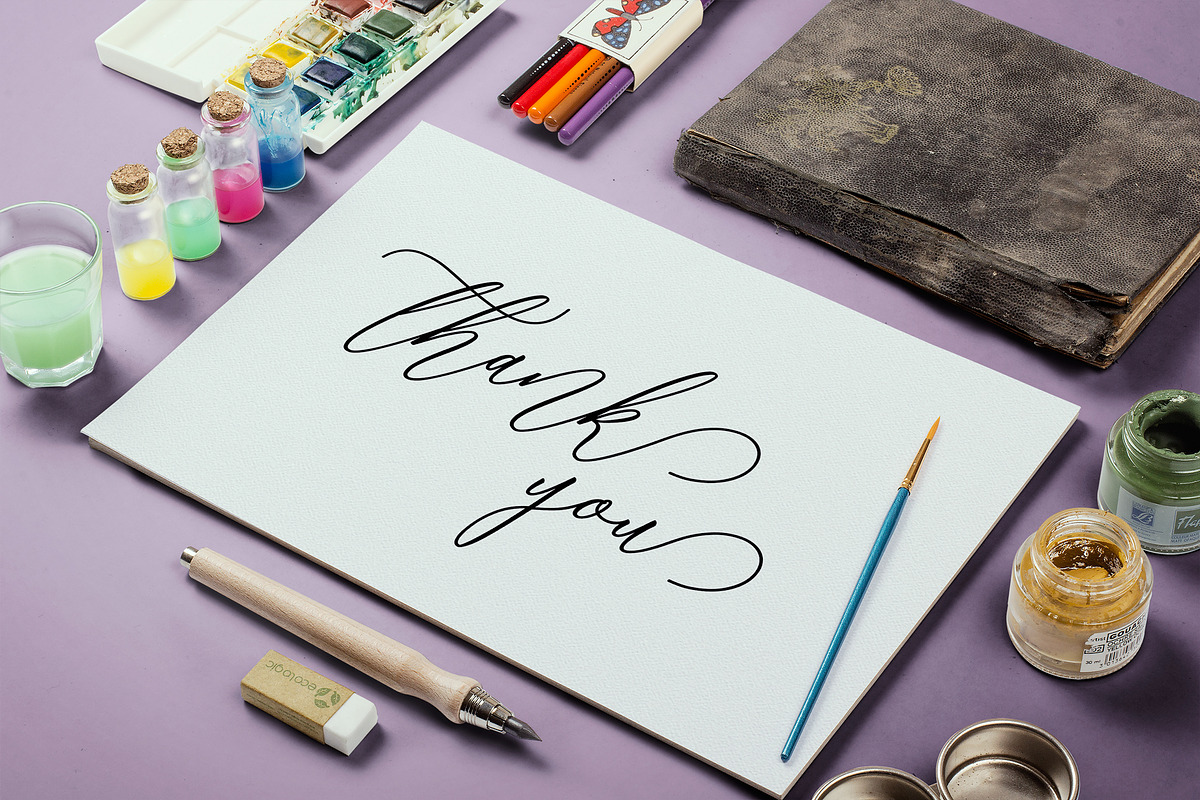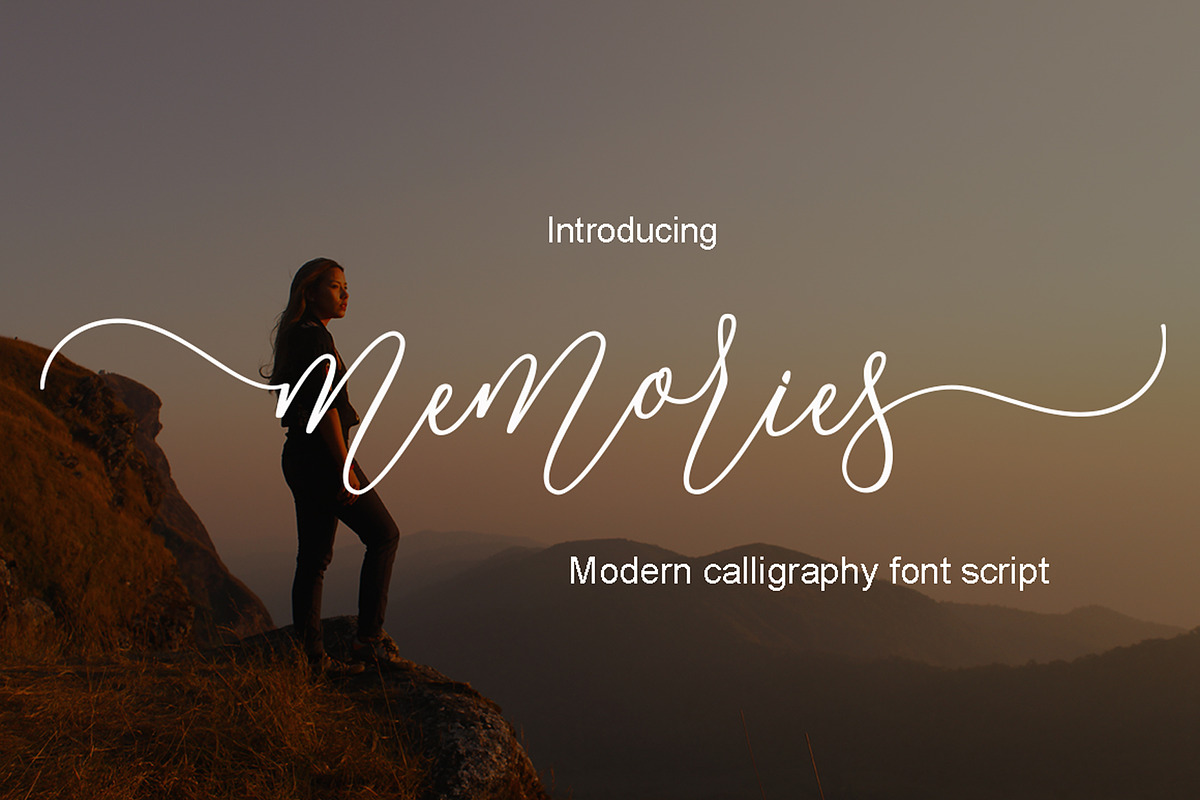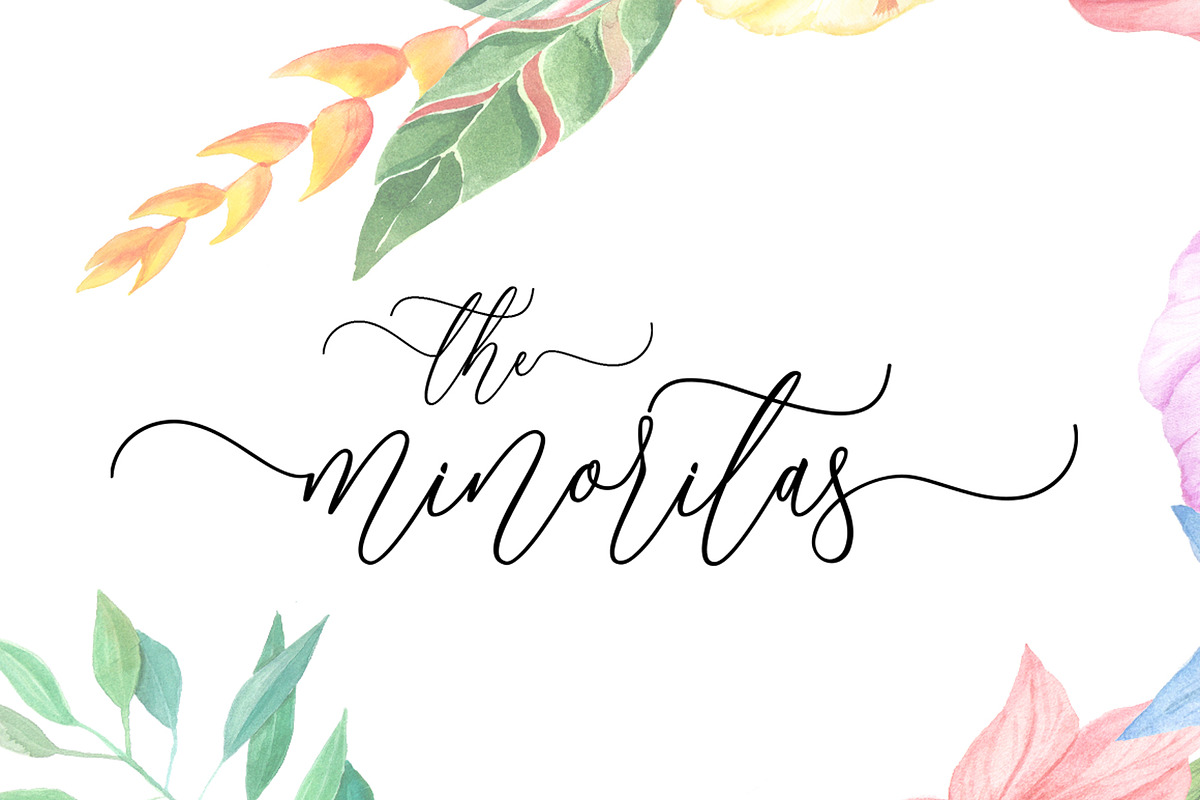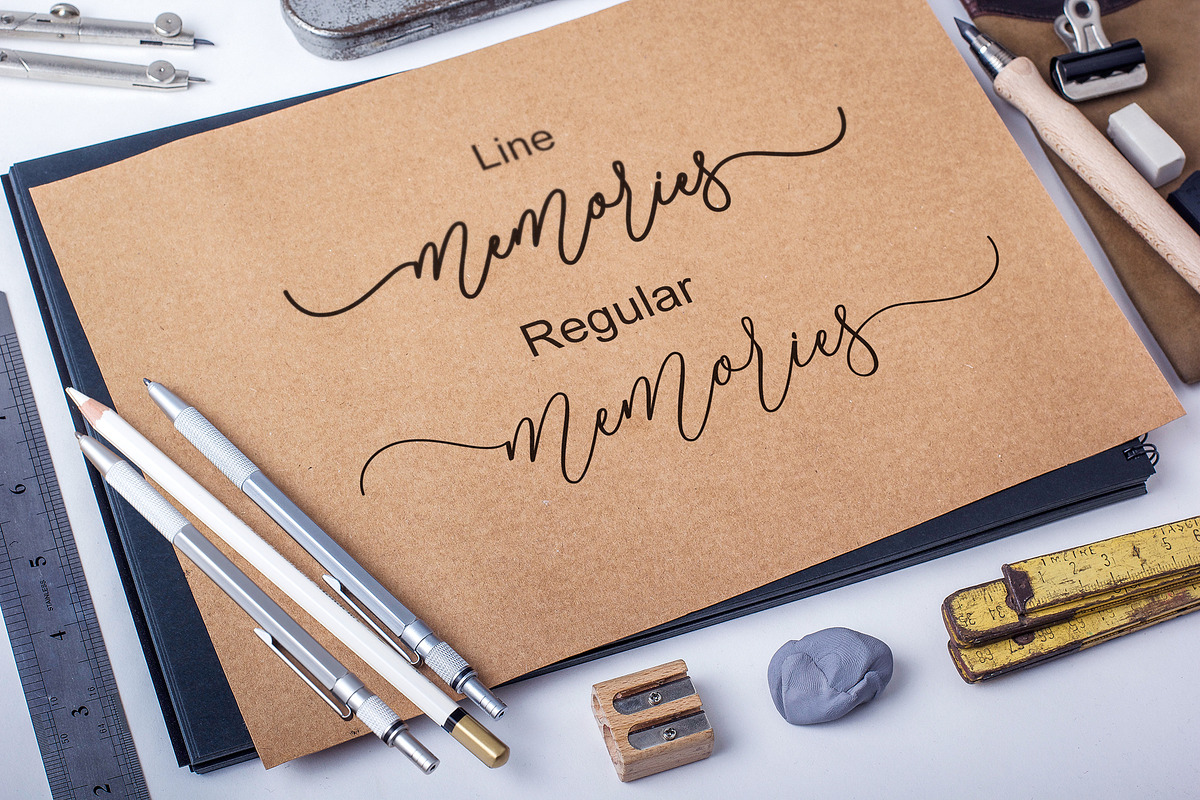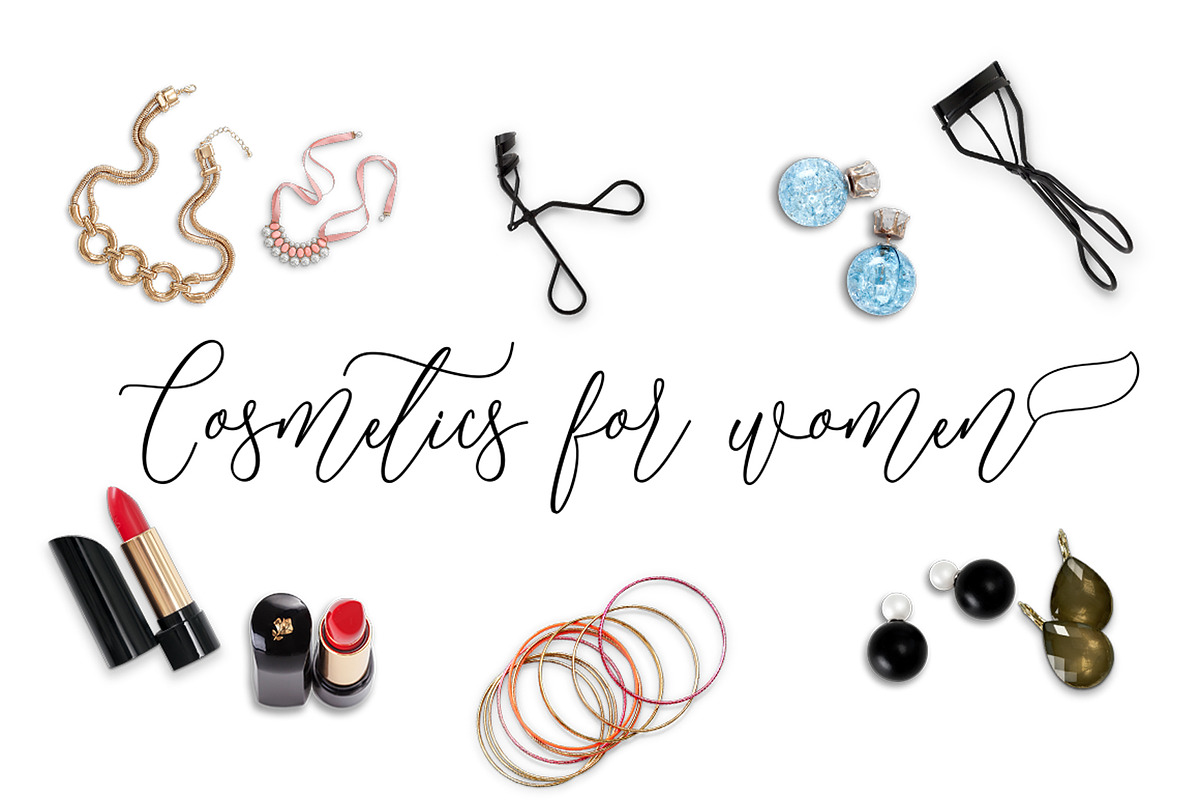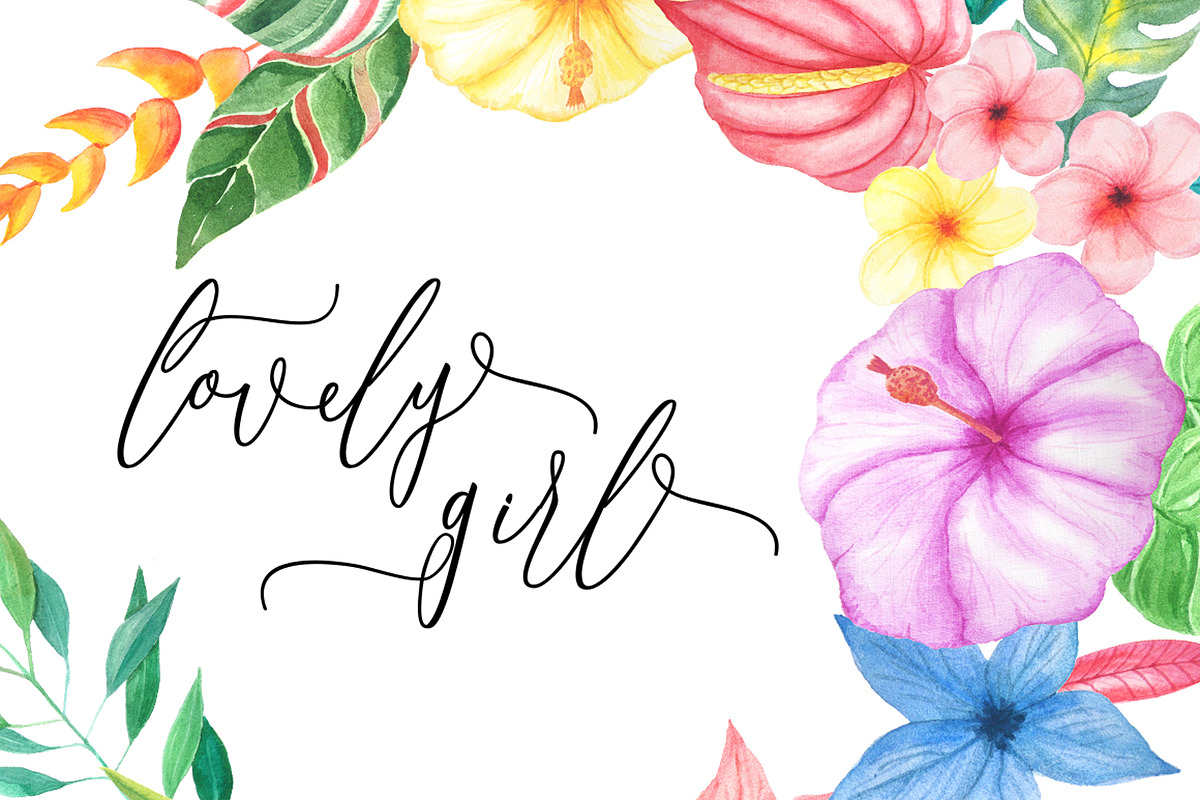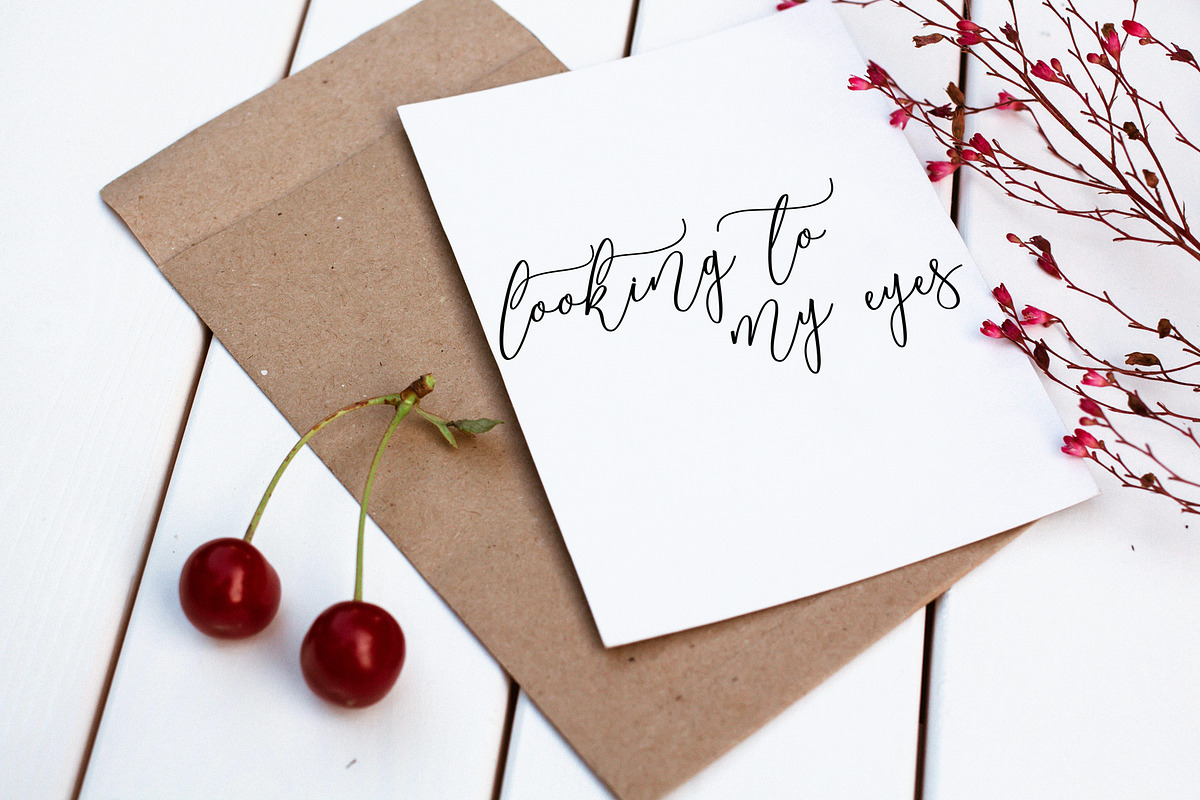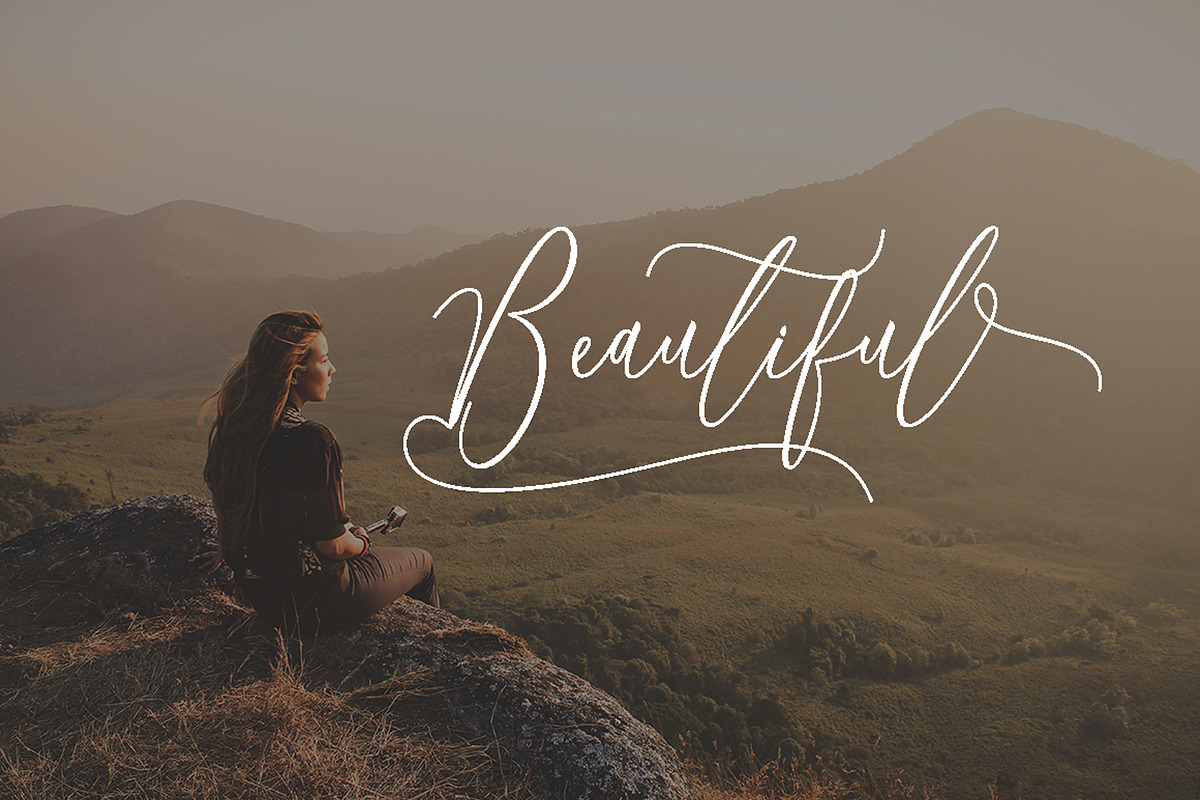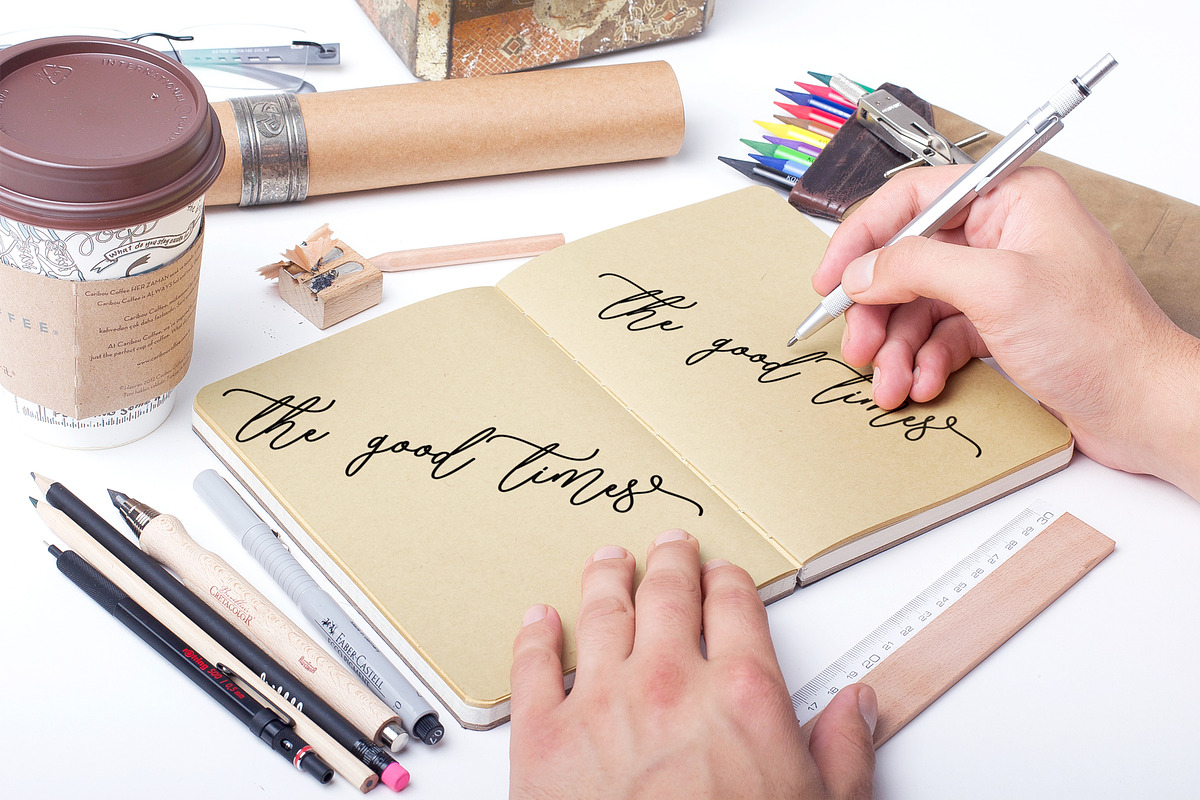
Memories
Memories Script
Memories Scripts are duo fonts of Memories line and Memories regular stylish calligraphy that have a varied base line, fine lines, classic and elegant touches. Can be used for various purposes. Such as title, signature, logo, wedding invitation, t-shirt, letterhead, nameplate, label, news, poster, badge etc.
Memories Script displays 447+ glyphs and 237 alternate characters. Includes initial letters and terminals, alternatives, ligatures and multiple language support. The Features of this fonts is:
- Standart ligatures